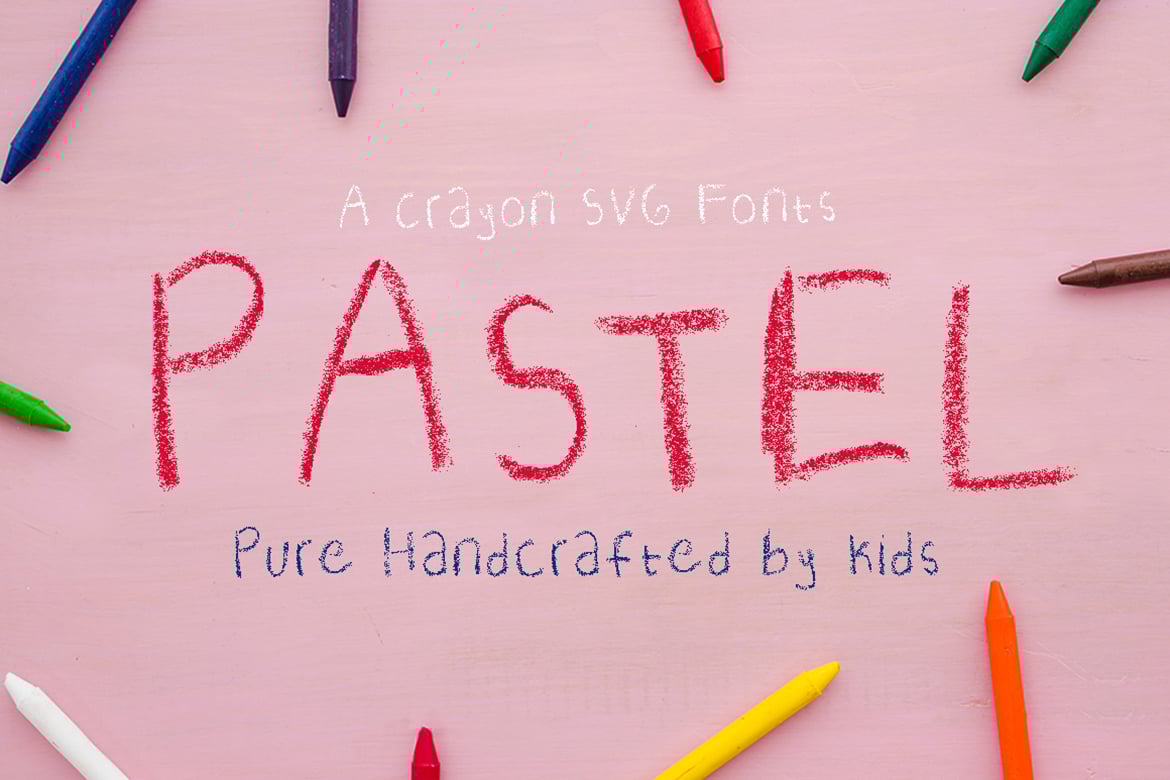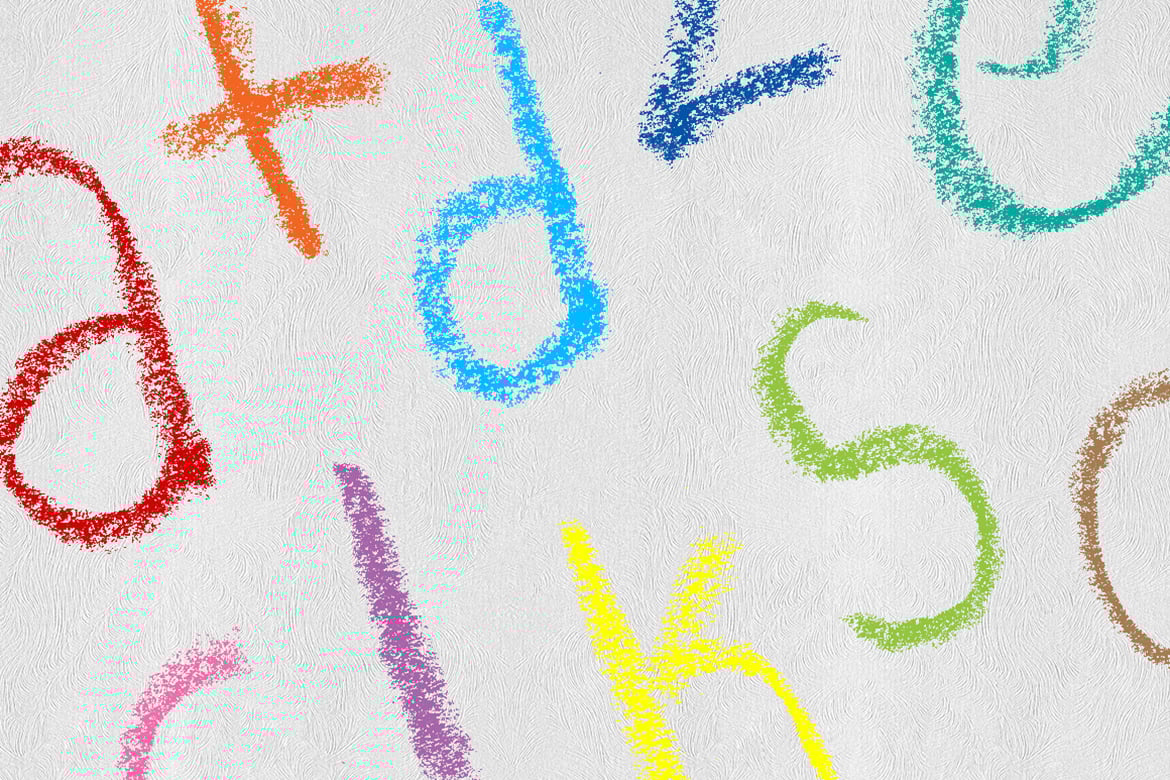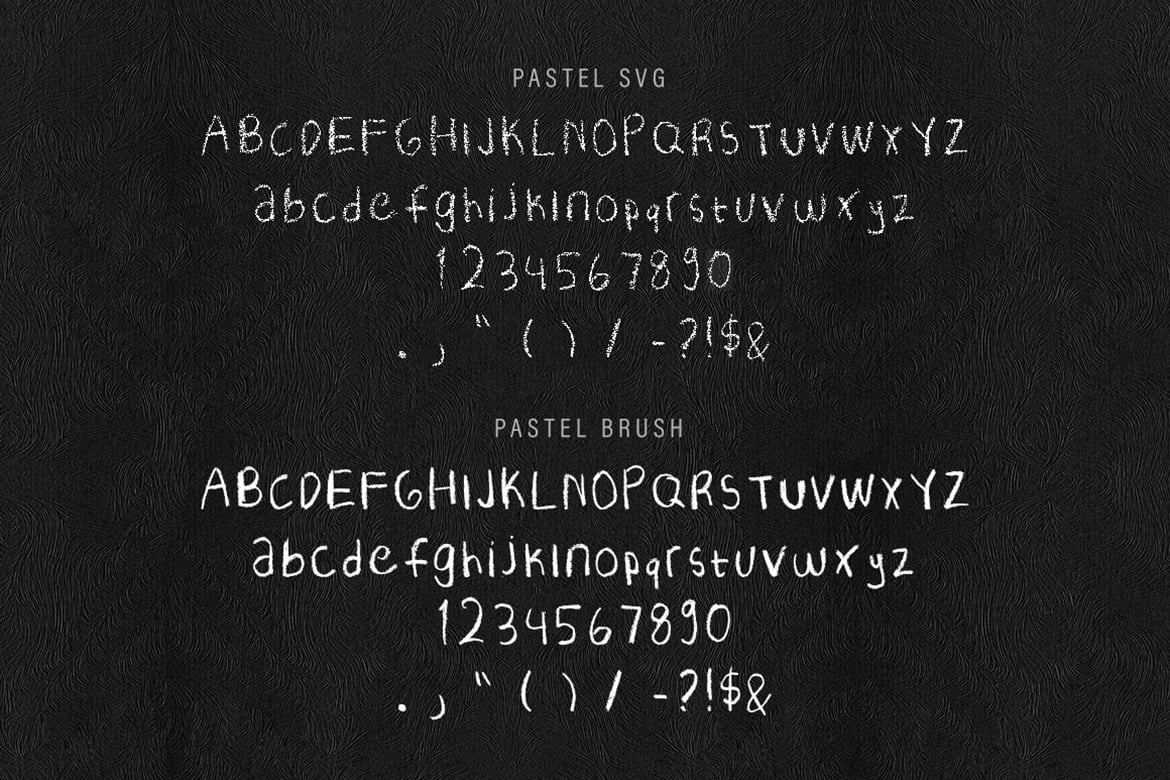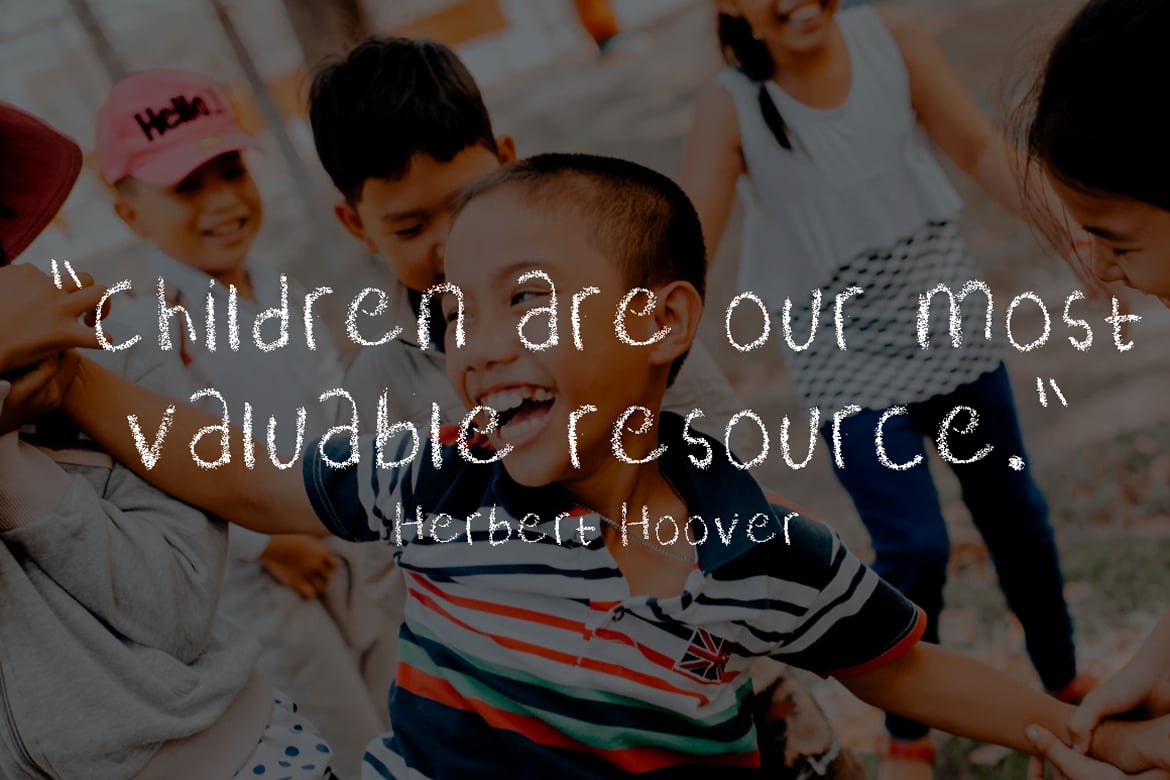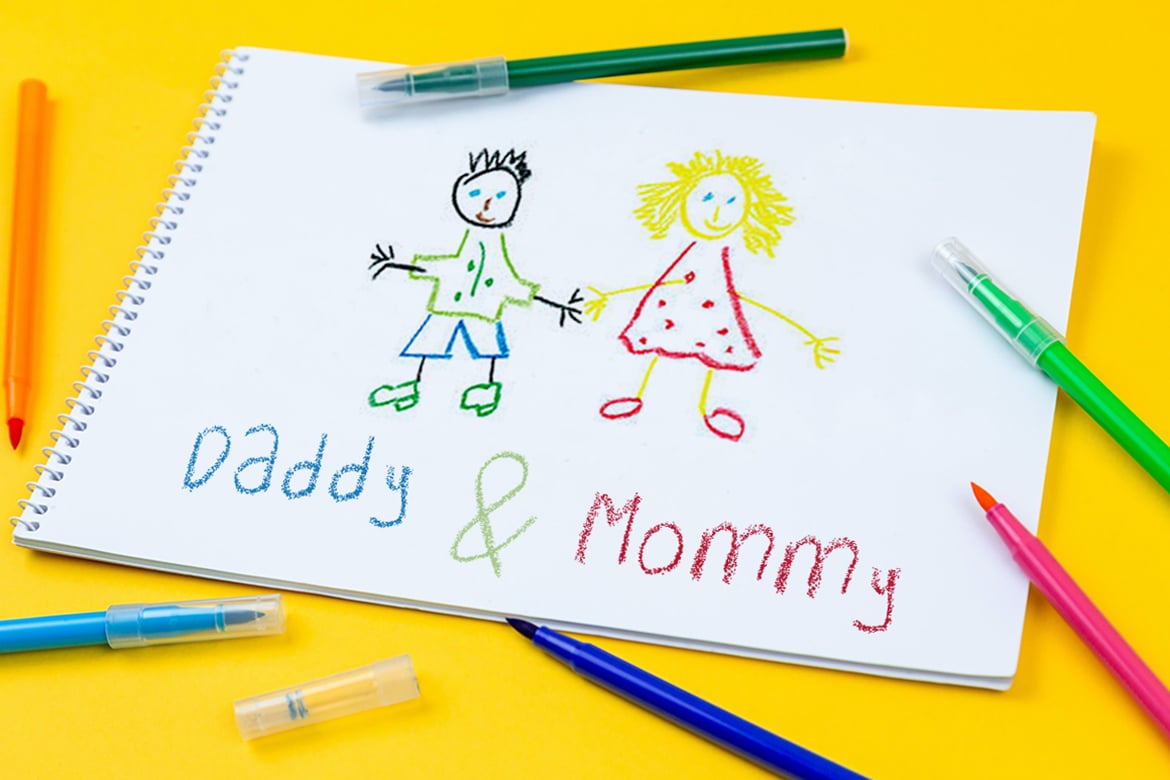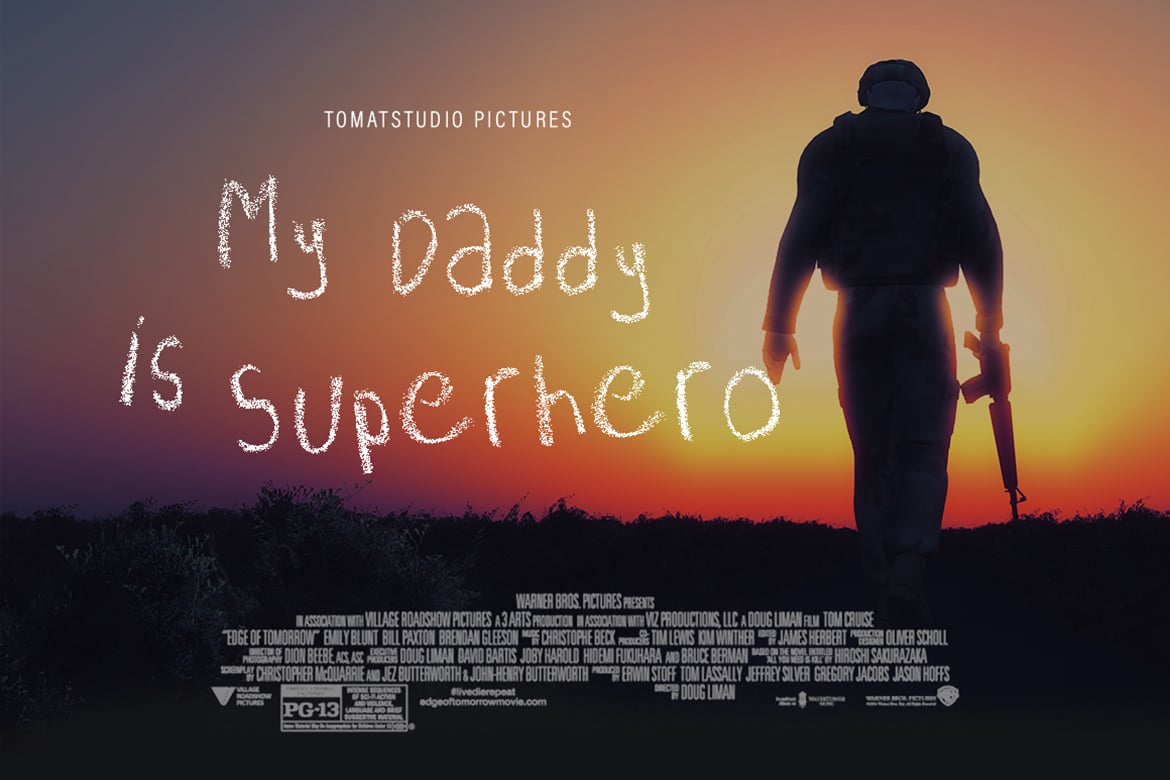
Realistic Crayon SVG Fonts Pastel
I told my nephew to draw alphabet in my drawing book, i scan it and make it fonts, so this crayon fonts is pure original hand drawn by kids, if you looking for realistic crayon effect fonts, this is the answer!